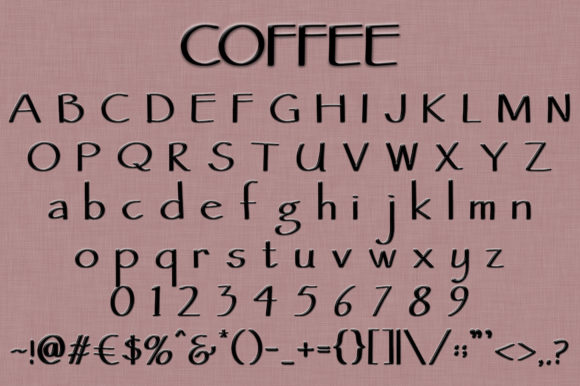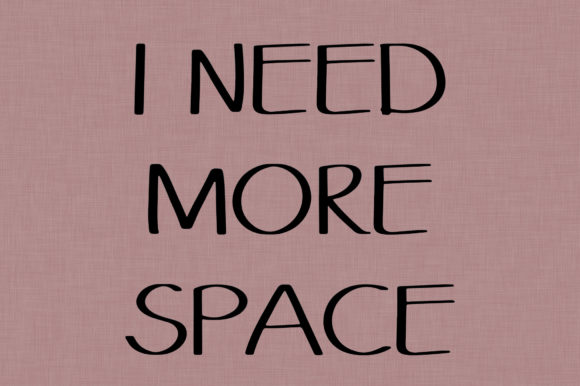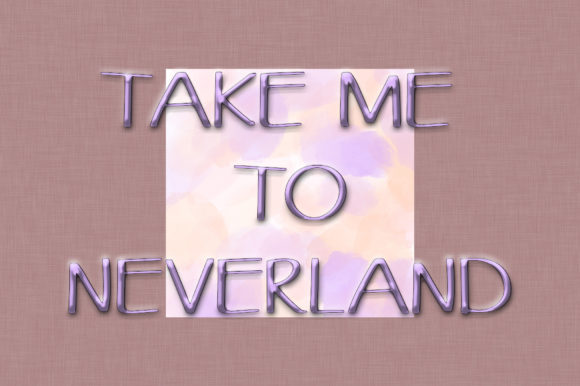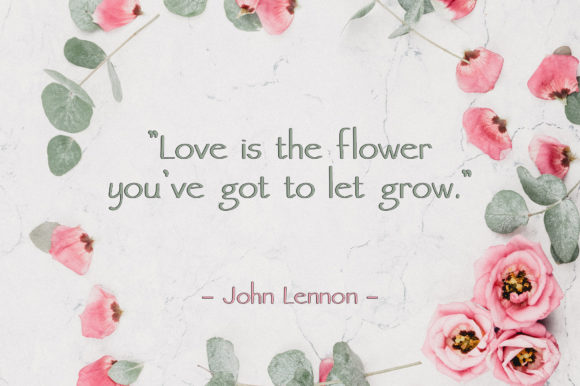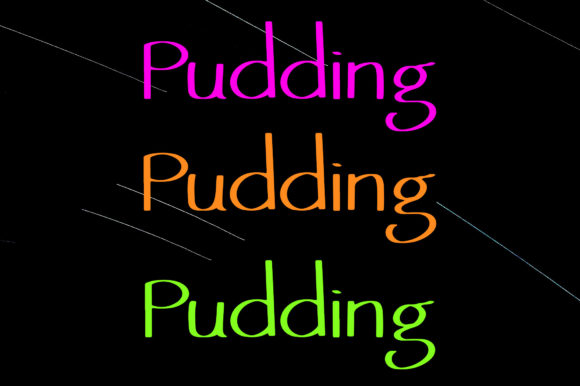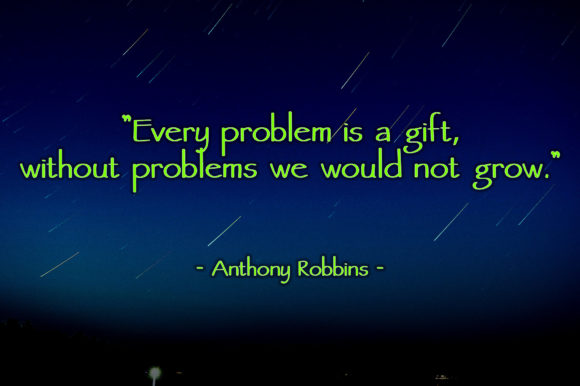
- ✅ Unique and eye-catching design: Coffee Font is a true showstopper, with its distinctive lettering style that’s sure to turn heads.
- ✅ Highly versatile: Whether you’re designing banners, wedding cards, or social media graphics, this font adapts seamlessly to any creative project.
- ✅ Easy to read: Despite its decorative nature, Coffee Font remains surprisingly legible, even at smaller sizes.
While Coffee Font is an amazing addition to any design project, there are a few minor quirks to be aware of:
- ⚠️ Limited suitability for body text: Due to its decorative nature, Coffee Font is best used for headlines and titles, rather than large blocks of text.
- ⚠️ No built-in italics: If you need italic variations, you might need to get creative with font manipulation or pair Coffee Font with a complementary italic font.
Coffee Font was designed by a talented type designer who drew inspiration from the world of coffee culture. With its rich, bold lines and inviting style, Coffee Font aims to evoke the warmth and comfort of a great cup of coffee. Whether you’re a designer, crafter, or creative hobbyist, Coffee Font is sure to become a staple in your font library.
| Font Name | Coffee Font |
| Author | aprianaart |
| What type of designs is Coffee Font best suited for? | Coffee Font is perfect for designs that require a bold, eye-catching title or headline, such as banners, wedding cards, social media graphics, and more. |
| Is Coffee Font available in different weights or styles? | Coffee Font is available in a single weight, but its versatility and range of OpenType features make it easy to adapt to different design needs. |